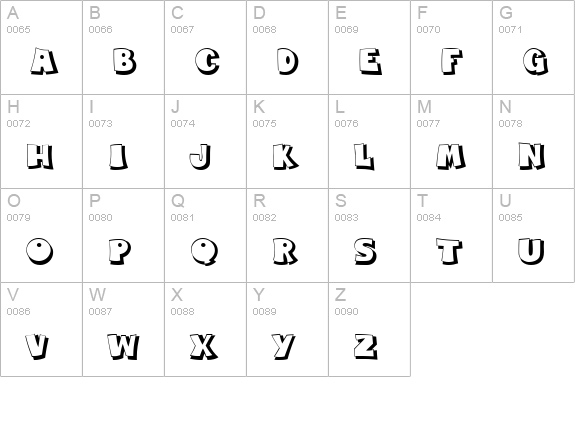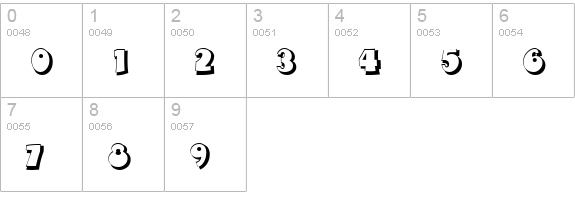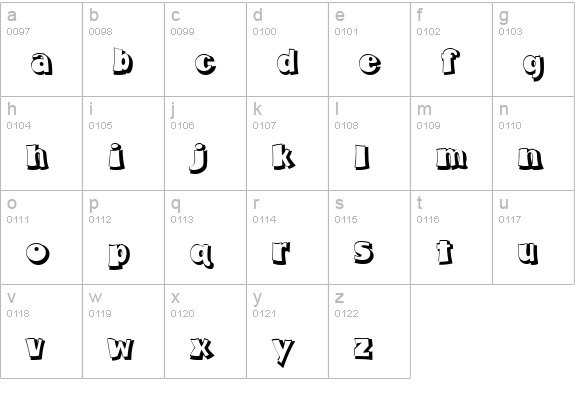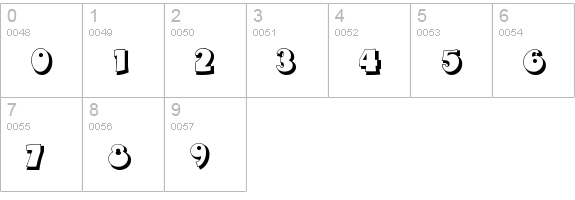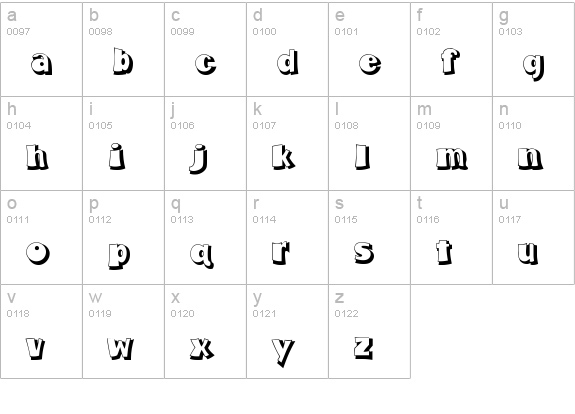
Fumo Dropshadow MN Font Details
Fumo Dropshadow MN font is a striking and modern typeface that captures attention with its bold and dynamic appearance. This font features sleek lines and a drop shadow effect that adds depth and dimension to any design project. Whether you're creating posters, logos, or social media graphics, Fumo Dropshadow MN font is sure to make a statement. What makes this font even more appealing is that it is available for free download at FontsMarket.com. This means you can easily access and use this stylish font in your projects without any cost. So, if you're looking to add a touch of sophistication and creativity to your designs, look no further than Fumo Dropshadow MN font. Download it today and elevate your visual creations to the next level.